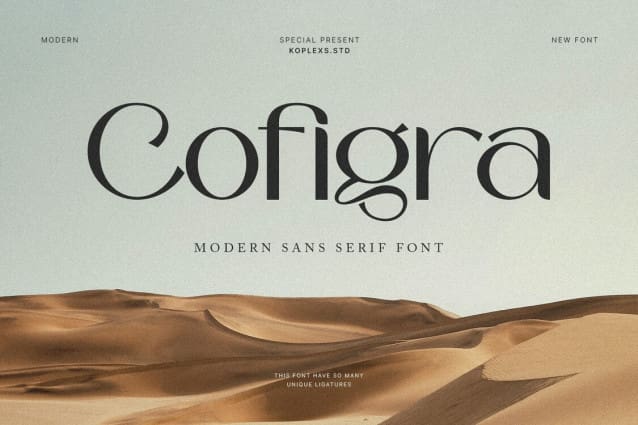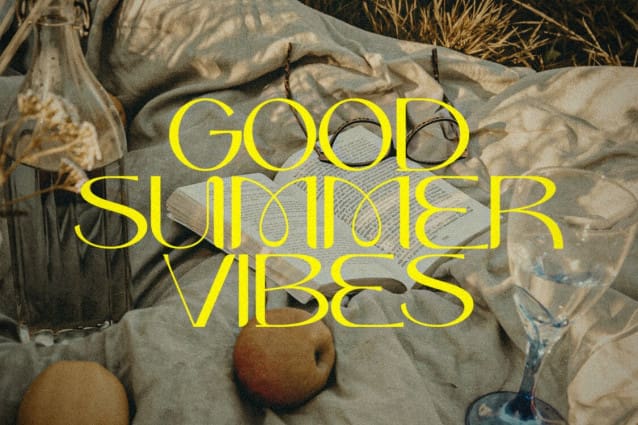
Cofigra Font
Cofigra Font is a collection of modern, Classy, feminine, beautiful and classy characters, giving you a unique look for any branding or design need.
Cofigra Font has a blend of beauty and classy feel, which has a variety of uses but is primarily intended for logos, social media posts, advertisements, product packaging, product designs, label, photography, watermark, stationery, book covers, perfumes, fashion magazines, or invitations. Not only will you find lots of decorative characters, but also the number of unique alternative characters will make you fall in love with this font.